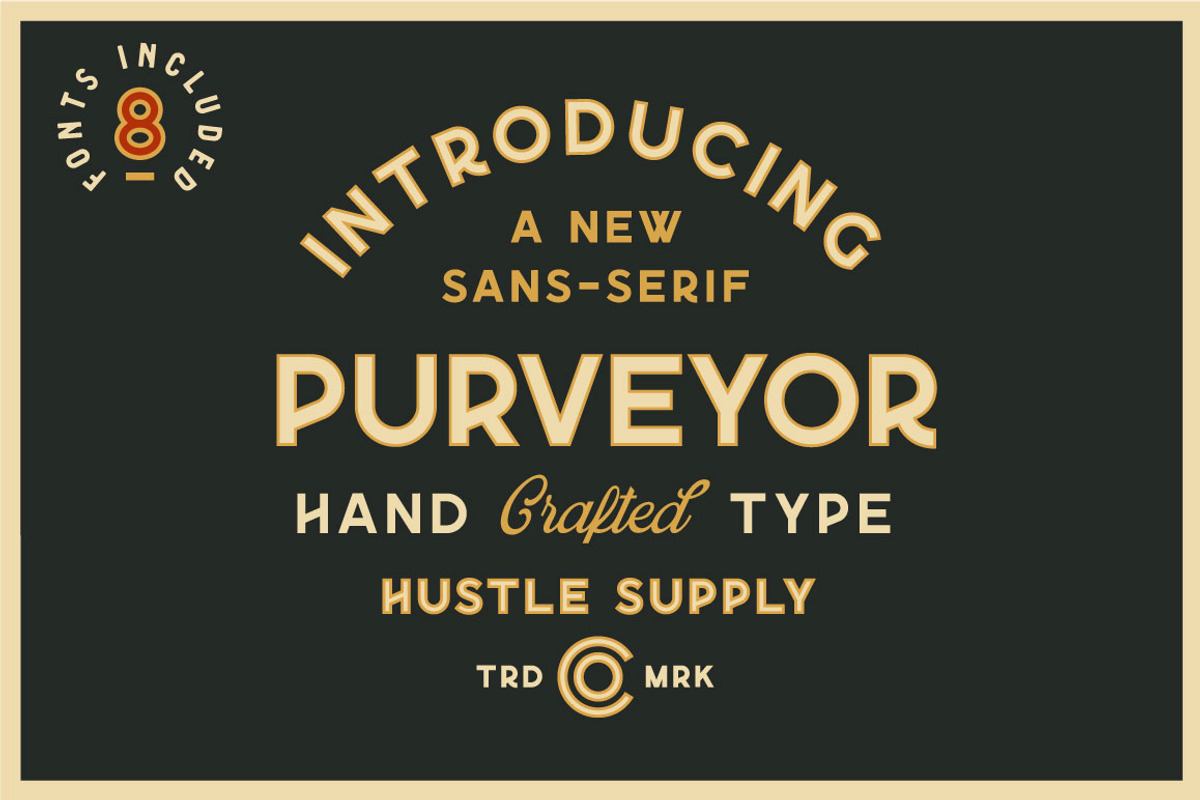
Purveyor Font Collection Free Download offers a set of eight unique typefaces designed to add variety and style to your creative projects. With a mix of bold displays, clean sans-serifs, and elegant scripts, this collection is perfect for logos, branding, packaging, posters, and social media graphics that require a versatile and cohesive design system.
Whether you’re building a polished brand identity, designing standout marketing materials, or creating a unified product line, Purveyor’s set of fonts provides the quality and consistency you need. It’s the perfect collection for designers who value variety and professional results.